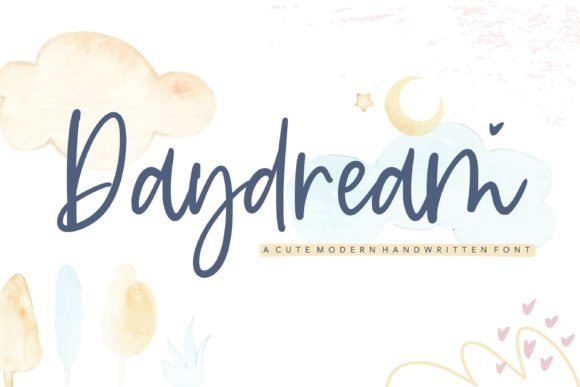
For designers, finding the right font can be the key to unlocking that creative spark. That’s where the Daydream Font comes in – a unique and quirky handwritten font that’s perfect for adding a touch of personality to any design. Its casual style makes it versatile and adaptable, allowing it to shine in a wide range of contexts, from busy backgrounds to standalone headlines.
Key Features of Daydream Font
- Unique Characteristics: Daydream Font features a unique blend of modern and vintage elements, with elegant lines, subtle curves, and a touch of whimsy, making it perfect for creative projects.
- Character Set: The font includes a comprehensive character set, including Latin, Greek, and Cyrillic alphabets, as well as a range of punctuation marks and symbols.
- Font Styles: Daydream Font comes in three styles: Regular, Bold, and Italic, offering versatility and flexibility for designers and typographers.
Daydream Font Review
As a designer, I was excited to try out the Daydream Font, and I must say it’s a unique addition to any design project. Here are my thoughts:
- Customizable: The font is highly customizable, allowing you to adjust the spacing, size, and color to fit your design needs.
- Legibility: Despite its playful and whimsical nature, the font is surprisingly legible, making it perfect for body text and captions.
- Stylish: The font’s unique style is sure to add a touch of personality to your designs, from invitations to social media graphics.
- Limited character set: The font’s character set is somewhat limited, which may make it difficult to use for longer texts or technical content.
- Not ideal for headings: While the font is great for body text, it may not be the best choice for headings, as it can get lost in larger font sizes.
Overall, I think the Daydream Font is a great addition to any design project, but it’s not without its limitations. With some careful planning and customization, it can be a beautiful and effective choice for a variety of design needs.
Daydream Font is ideal for:
- Whimsical and dreamy designs
- Typography-based art projects
Is the Daydream Font optimized for digital use?
Yes, the Daydream Font is optimized for digital use, with careful attention paid to hinting and kerning to ensure smooth rendering on a variety of devices and screen resolutions. This ensures that the font looks its best on screens, from desktop monitors to mobile devices.